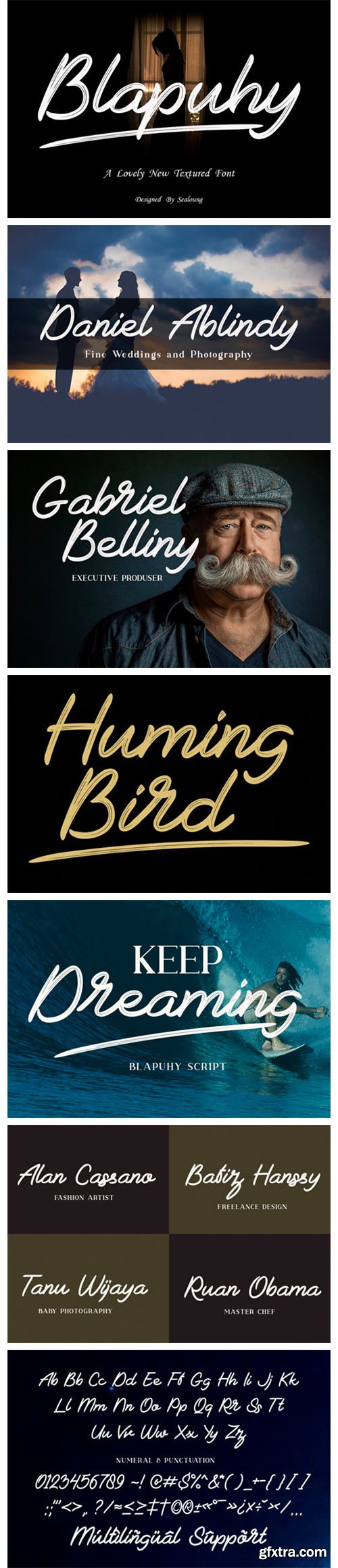
Blapuhy Font
Blapuhy is a lovely handwritten font, designed with the help of a brush pen. Fall in love with its authentic feel and use it to create gorgeous wedding invitations, beautiful stationary art, eye-catching social media posts, and cute greeting cards.